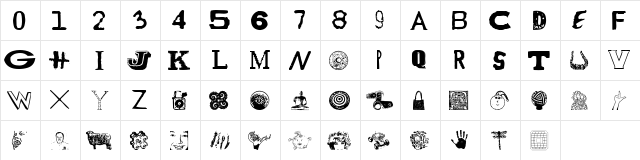
cullit Regular
Design Context for cullit Typeface
cullit is a composed and adaptable typeface that performs quietly and consistently across a wide range of design contexts.